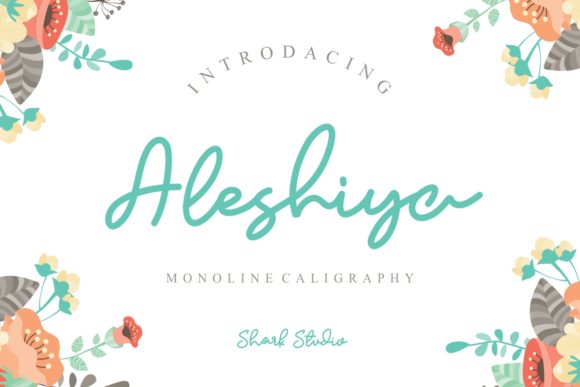
The Sweet Charm of Aleshiya Font: A Designer’s Delight
I’ll never forget the time I was working on a wedding invitation project, and my client asked for a font that was “sweet, delicate, and romantic.” I scoured the internet, tried out dozens of fonts, but nothing seemed quite right. That was until I stumbled upon Aleshiya Font. ✨ This beautiful, handwritten font won my heart and my client’s approval. In this article, I’ll share my experience with Aleshiya Font, its features, and how to make the most of it in your designs.
An Honest Review of Aleshiya Font
- ✨ Sweet and delicate: Aleshiya Font is perfect for designs that require a touch of romance and whimsy.
- ✅ Highly legible: Despite its delicate nature, Aleshiya Font is surprisingly easy to read, even in smaller sizes.
- 🎉 Versatile: This font is suitable for a wide range of design projects, from wedding invitations to cards, and even social media graphics.
While Aleshiya Font is a stunning addition to any design, there are a few things to keep in mind:
- 🤔 Limited character set: Aleshiya Font may not have an extensive character set, which can limit its use in certain projects.
- ⚠️ Not suitable for body text: Due to its delicate nature, Aleshiya Font is best used for headlines, titles, or short paragraphs.
A Practical Guide to Using Aleshiya Font
- Experiment with OpenType features, such as Stylistic Alternates and Swashes, to add a personal touch to your design.
- Explore OpenType features, such as Glyphs and Stylistic Sets, to add visual interest to your design.
The Backstory of Aleshiya Font
Aleshiya Font was designed with love and care by a talented type designer who wanted to create a font that would evoke emotions and romance. The font’s delicate nature and whimsical feel make it perfect for designs that require a personal touch.
| Font Name | Aleshiya Font |
| Author | SharkStudio |
Q: What is Aleshiya Font best used for?
A: Aleshiya Font is ideal for designs that require a romantic, personalized touch, such as wedding invitations, cards, and social media graphics.
Q: Is Aleshiya Font suitable for body text?
A: No, Aleshiya Font is best used for headlines, titles, or short paragraphs due to its delicate nature.